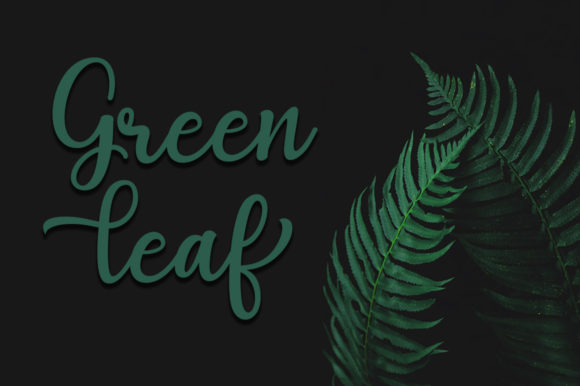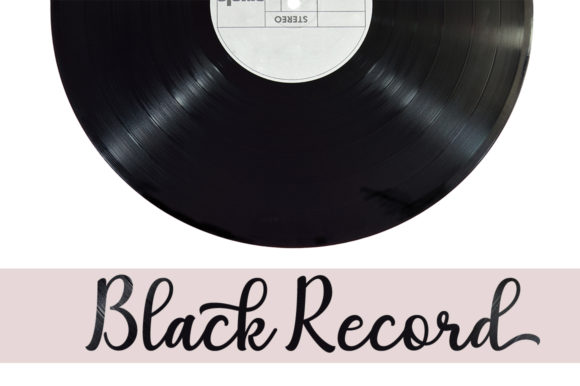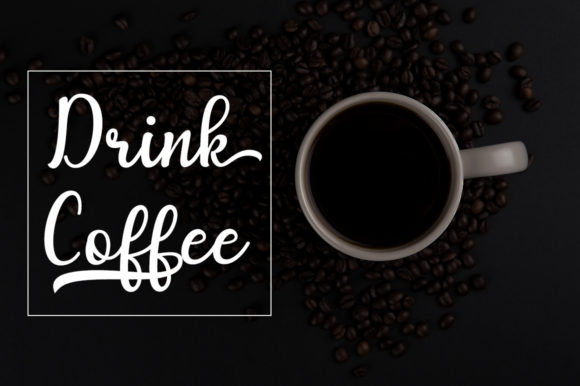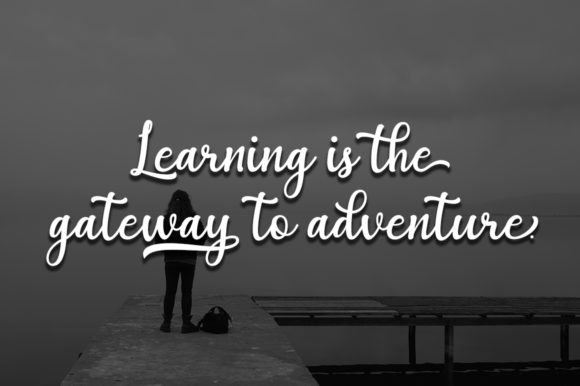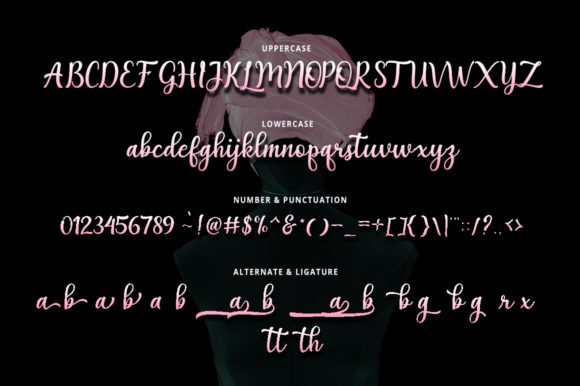
HomeScript FontsAgnetha Font Script Fonts Agnetha Font FacebookXPinterestWhatsApp Agnetha Font Poster 2 Agnetha Font Poster 3 Agnetha Font Poster 4 Agnetha Font Poster 5 Agnetha Font Poster 6 About Agnetha Font With its authentic curves and charming strokes, Agnetha pays homage to classic handwriting. DOWNLOAD ON CREATIVE FABRICAThis font is sold and delivered by Creative Fabrica. Font Canyon may earn a commission if you buy through this link. People also explored Happy Medium Font Coffee Font + Extras Font Uncontrolled Emotions Font Minihouse Font Winchester Font Rollance Beauty Font Dogie Font Our Infinity Love Font Nagatshu Light Font 311 0 TagsAgnetha Font Previous articleUrsula Handschrift FontNext articleBarcetto Font LEAVE A REPLY Cancel reply Comment: Please enter your comment! Name:* Please enter your name here Email:* You have entered an incorrect email address! Please enter your email address here Website: Save my name, email, and website in this browser for the next time I comment. Personal Use Free Better Together Duo Personal Use Free Read more about this font Bintang Noela Personal Use Free Read more about this font Bettari Personal Use Free Read more about this font Girls Personal Use Free Read more about this font BLOG Where to Buy American Fonts Online in 2024 Where to Buy American Fonts Online: The Ultimate Guide for 2024 Looking for the perfect American font to elevate your design projects? You're in the... Top 10 Handwritten Fonts That Elevate Your Designs Transform Your Website: Elevate Your Typography with 7 Best Web Font Generators Modern Sans-Serif Fonts That Brands Love in 2025